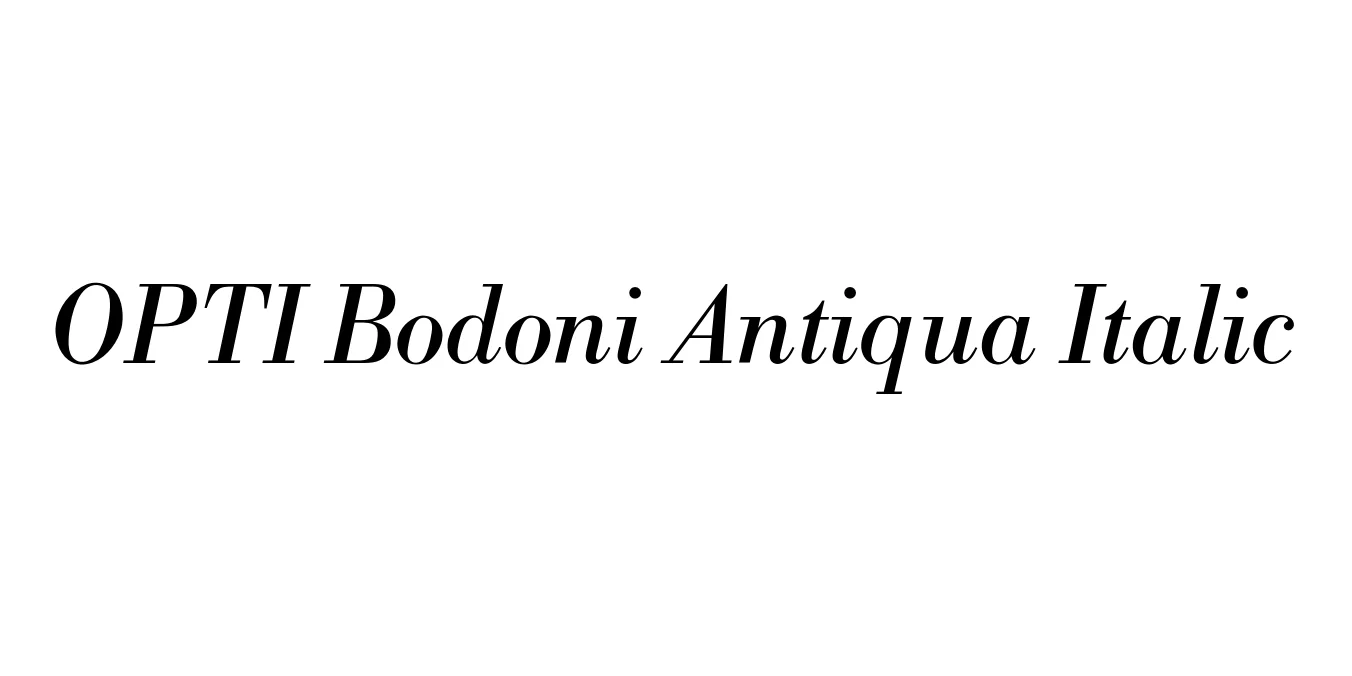
OPTI Bodoni Antiqua Italic
Designed by Giambattista Bodoni (Original), Castcraft (OPTI Version)
| Category | Serif / Didone |
| Designer | Giambattista Bodoni (Original), Castcraft (OPTI Version) |
OPTI Bodoni Antiqua Italic is a digital revival of the classic Didone typeface originally conceived by the legendary Italian typographer Giambattista Bodoni in the late 18th century. Characterized by its dramatic contrast between thick and thin strokes and its vertical axis, this italic variant offers a sophisticated, rhythmic flow that epitomizes neoclassical elegance. The OPTI version was produced by Castcraft Software, providing a high-quality digital rendition of this timeless serif style for modern desktop publishing.
Historically, the Bodoni family represented a shift toward more geometric and rationalist letterforms, moving away from the organic nature of Old Style serifs. The Italic weight specifically is prized for its graceful slant and calligraphic influence, making it a staple in premium editorial design. Today, it remains a favorite for designers seeking to convey luxury, authority, and historical prestige in both print and digital media, often found in high-fashion branding and luxury catalogs.
OPTI Bodoni Antiqua Italic Best Uses
Perfect for high-fashion magazine headlines and feature articles.
Ideal for luxury brand logos and upscale product packaging.
Adds a touch of class to formal wedding invitations and high-end event stationery.
Excellent for expressive subheadings and pull-quotes in printed books.